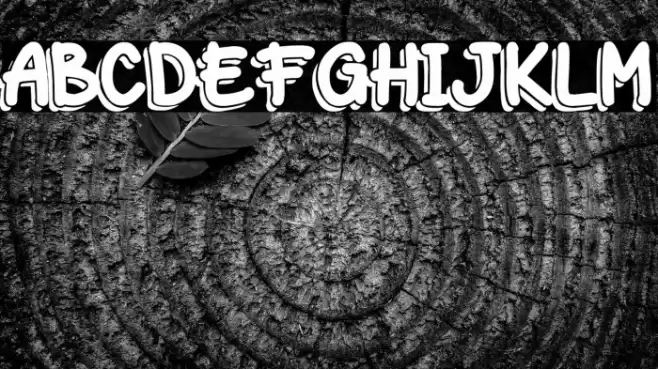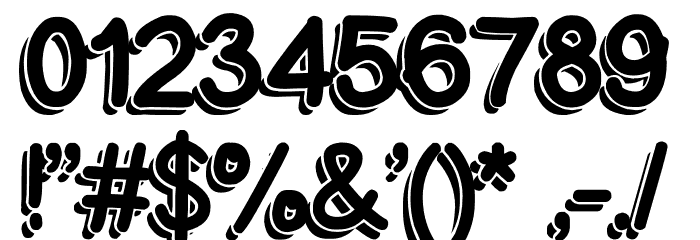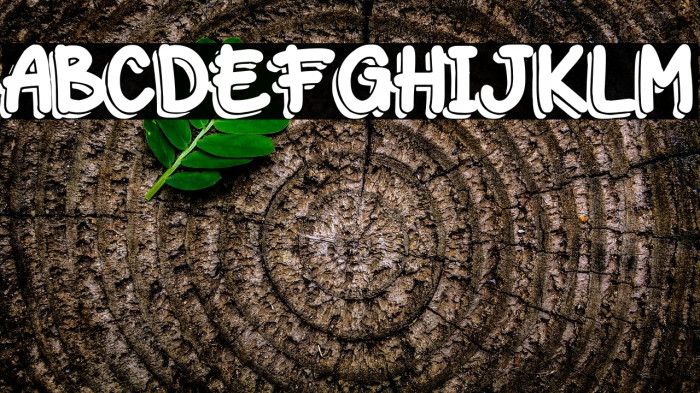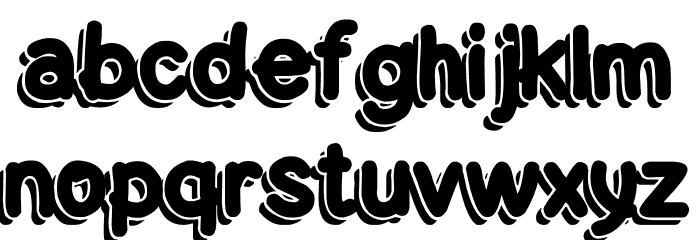
Netigen Shadow Font
Netigen Shadow Description
This font features a bold, playful style with a distinct shadow effect that gives it a three-dimensional appearance. The characters are rounded and have a hand-drawn quality, adding a whimsical and informal touch. The uppercase and lowercase letters maintain a consistent style, with the shadow creating a sense of depth. Numbers and special characters are equally bold and maintain the same shadow effect, ensuring uniformity across all glyphs. This font is ideal for projects that require a fun and engaging look, such as children's books, posters, or branding for playful products.
A bold, playful font with a shadow effect and hand-drawn style from Uncategorized fonts.
- Proposed Projects: Ideal for children's books, playful posters, and branding for fun products.
- Overall Style: Playful, Whimsical